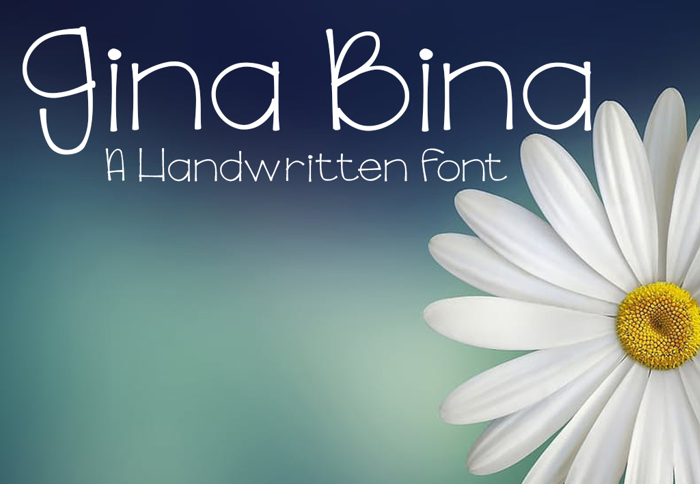
GinaBinaRegular Font
A fun fanciful font perfect for invitations, t-shirts, and much more. Free font is for personal use only, or you can use commercially for a $15 donation.